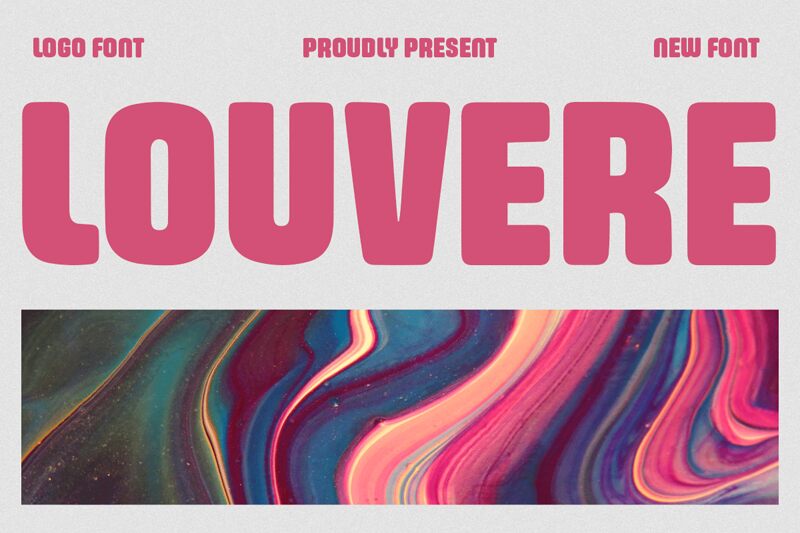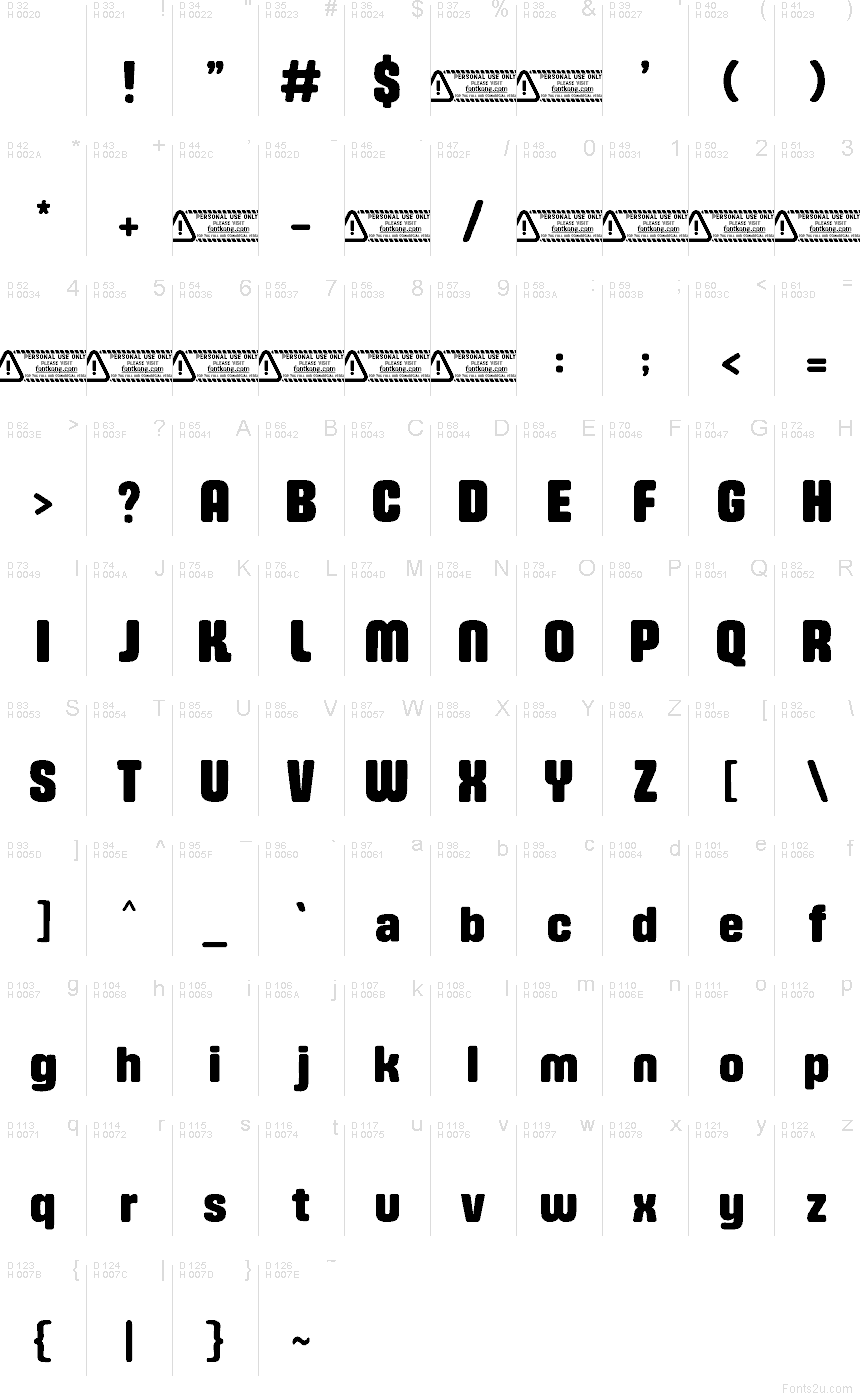
Louvere font by Kong Font is a free chunky sans serif font, with a typeface voice that feels molded from rubber—wide, weighty strokes, soft corners, and tight spacing that keeps headlines looking packed and confident. It grabs attention without sharp edges, so your message lands bold but approachable.
Using Louvere on posters, streetwear graphics, album covers, gaming thumbnails, event flyers, social ads, and punchy logo lockups gives instant impact. Pair Louvere with a clean, airy sans for body copy, and give it a little extra tracking at larger sizes so the blocks can breathe—this free font stays loud either way.